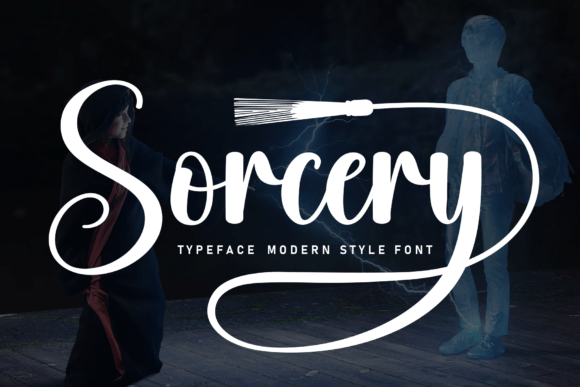
Introducing Sorcery Font, the captivating script font that will transport your designs to a world of enchantment and allure. Created by the talented Roronoa Zoro.S.P.D, Sorcery is not just a font; it's an artistic gateway to captivating designs that speak volumes.
Step into a realm where your words dance with grace and elegance, leaving an indelible mark on the hearts of your audience. Sorcery's enchanting curves and intricate details will breathe life into your logos, branding, and quotes, making them stand out from the mundane.
With Sorcery, you have the power to evoke emotions, inspire creativity, and leave a lasting impression. Its timeless beauty transcends trends, ensuring that your designs remain captivating for years to come. Every letter in Sorcery is a work of art, meticulously crafted to add a touch of magic to your creations.
Unleash your imagination and let Sorcery weave its spell on your designs. Whether you're a seasoned designer or just starting, the Sorcery font will elevate your work to new heights. Embrace the allure of Sorcery and watch your designs transform into captivating masterpieces.